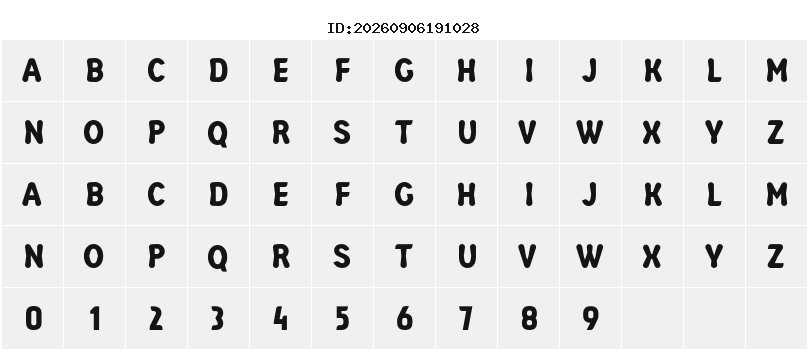
• Font Name: TEODE BASIC
• Designer: Łukasz Luta Olszewski
TEODE BASIC.otf is a modern, elegant sans-serif font designed for ultimate readability and visual harmony. Perfect for branding, headlines, web design, and print materials.